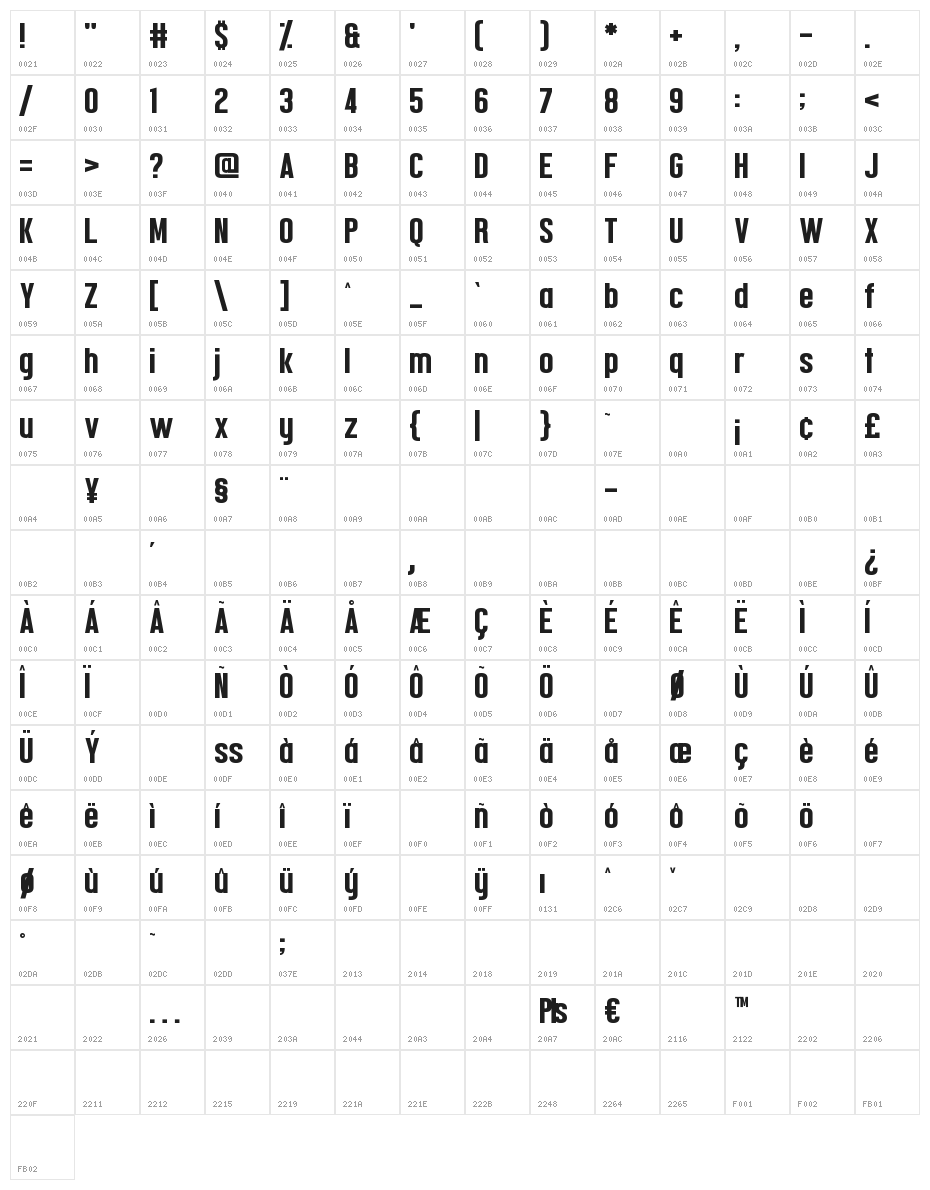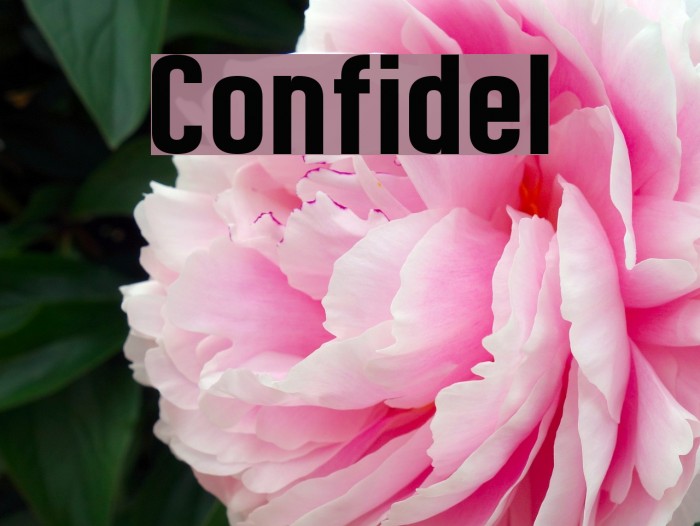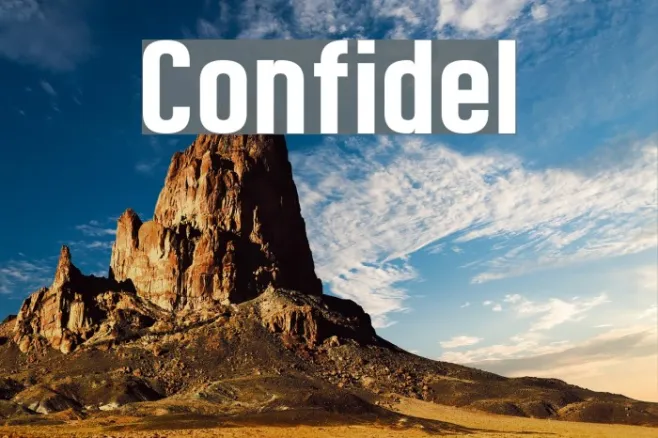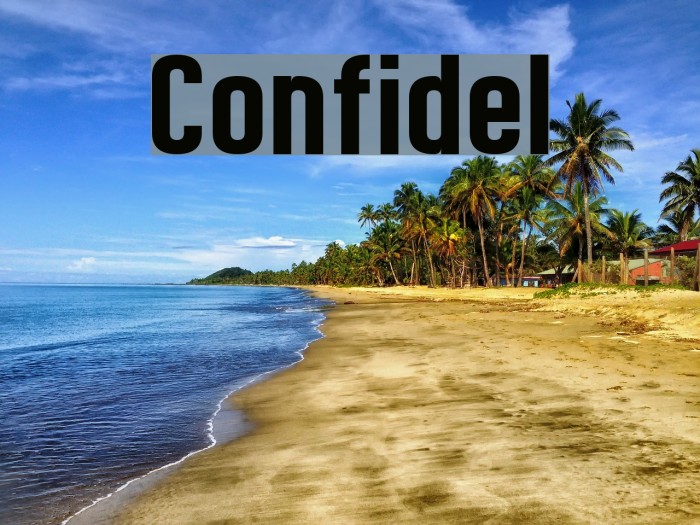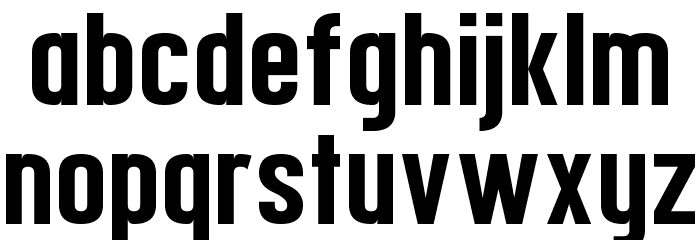
Confidel Font
Confidel Description
This font features a bold and assertive style with strong, clean lines and a modern aesthetic. The characters are uniformly thick, providing a consistent and powerful appearance. The uppercase letters are tall and commanding, while the lowercase letters maintain a balanced and cohesive look. The numerals are clear and easily distinguishable, making them suitable for various applications. Special characters are well-integrated, ensuring versatility in design projects. The overall design is straightforward yet impactful, making it ideal for attention-grabbing headlines and branding.
| Proposed Projects | Ideal for branding, advertising, posters, and headlines where a strong visual impact is needed. |